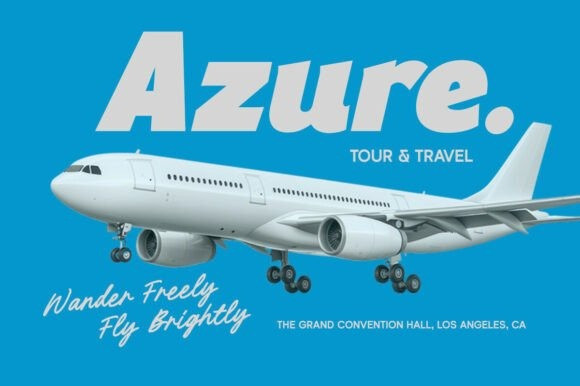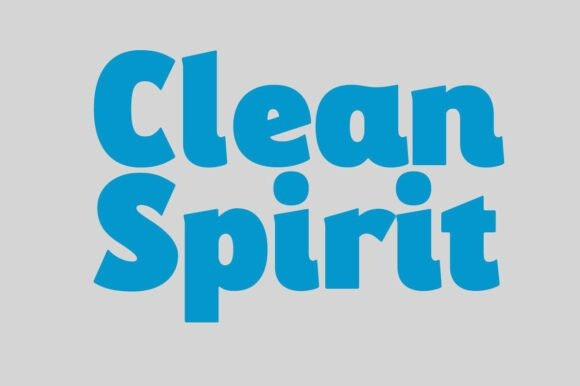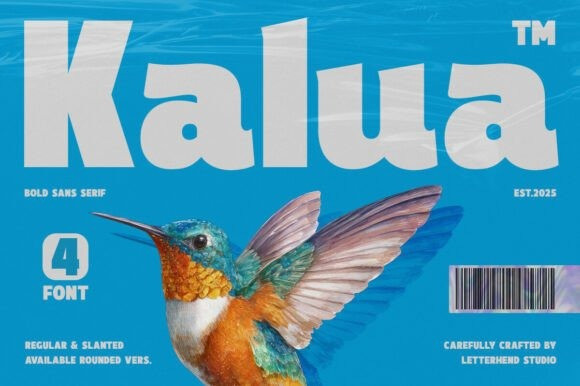
Kalua Font
Kalua Font a Bold Sans Serif font that uniquely captures a harmonious blend of chunky retro aesthetics and modern fluidity. This typeface is built to be eye-catching and approachable, making a solid, yet friendly statement.
Kalua’s distinctive appearance is defined by its extremely heavy weight and exaggerated, organic curves, which lend the letterforms a playful, almost bubbly structure. While technically sans-serif, its weight and flow give it a distinct display character, often reminiscent of late 60s/early 70s design but with a refined modern polish.
Available in regular, slanted, and rounded versions, it offers high versatility for branding, packaging (especially food/beverage), surf/beach apparel, and bold magazine headers.
Kalua’s uniqueness is its smooth, chunky confidence—a perfect choice for designers wanting a bold font that is more amiable and inviting than traditional industrial bold types.